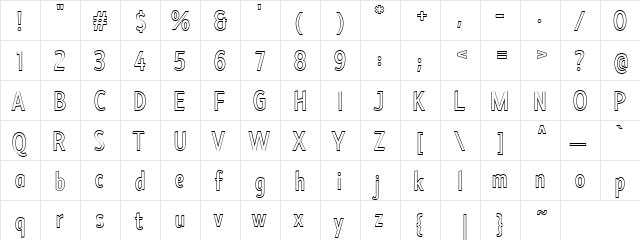
Burma Outline Regular
| Designer | Satia Hayu Prabowo |
Design Context for Burma Outline Typeface
Burma Outline is built around its visual character rather than neutral utility — its distinctive forms are designed to make an impression at display sizes.
Font Pairing: Pair with a clean neutral sans-serif for body copy to let Burma Outline's character lead without overwhelming the composition.
Pro Tip: Treat Burma Outline as the centrepiece of your typographic hierarchy. One strong heading set in a decorative face can carry an entire layout.